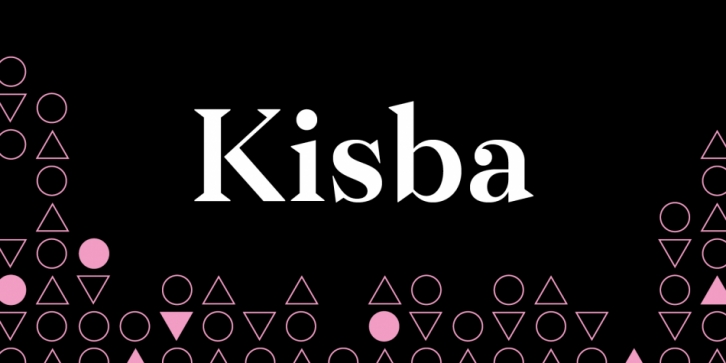
Designed by Moritz Kleinsorge, Kisba is a display serif font family. This typeface has seven styles and was published by Moritz Kleinsorge.
Kisba is a brand new serif typeface that operates to arouse attention. As contrasts are known to attract each other, Kisba combines sharp, triangular serifs and spiky outgoing strokes with round and soft ball terminals. It’s a typeface driven by visual contrast.
Kisba’s extraordinary design of thin and monolinear diacritics, selected punctuation marks and symbols creates a modern and elegant atmosphere. With extravagant letters like the f, k and x, Kisba is primarily labeled as a typeface for display usage or shorter texts, that catches the reader’s eyes.
The typeface exists in seven weights from Thin to Black offering plenty of possibilities to set texts and headlines. With about 600 Characters per weight, Kisba contains Open Type Features like an extended set of ligatures and language support, case sensitive forms, different sets of figures and arrows.
As a perfect companion to Kisba, my geometric Sans Serif Flink owns the same cap height. That way, you can set uppercase letters next to each other very easily.